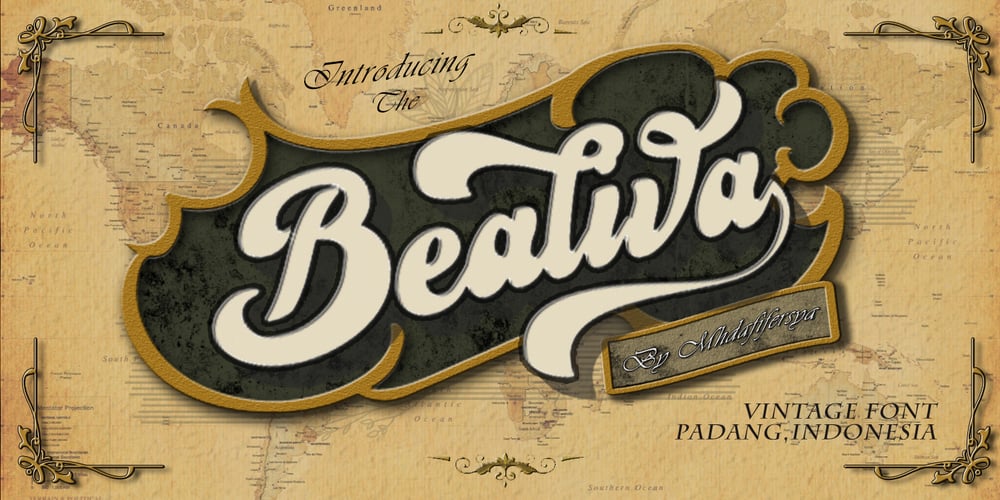
Bealiva Vintage Font Family was designed by Muhammad Afif Ersya and published by Mevstory Studio. Bealiva Vintage contains 1 styles and family package options. Bealiva is one of my fonts based on a hand lettering project in 2020. It was very inspired from the famous retro typography designs in late 60’s until 70’s. It includes the extrude look, so you will not have to add it later.